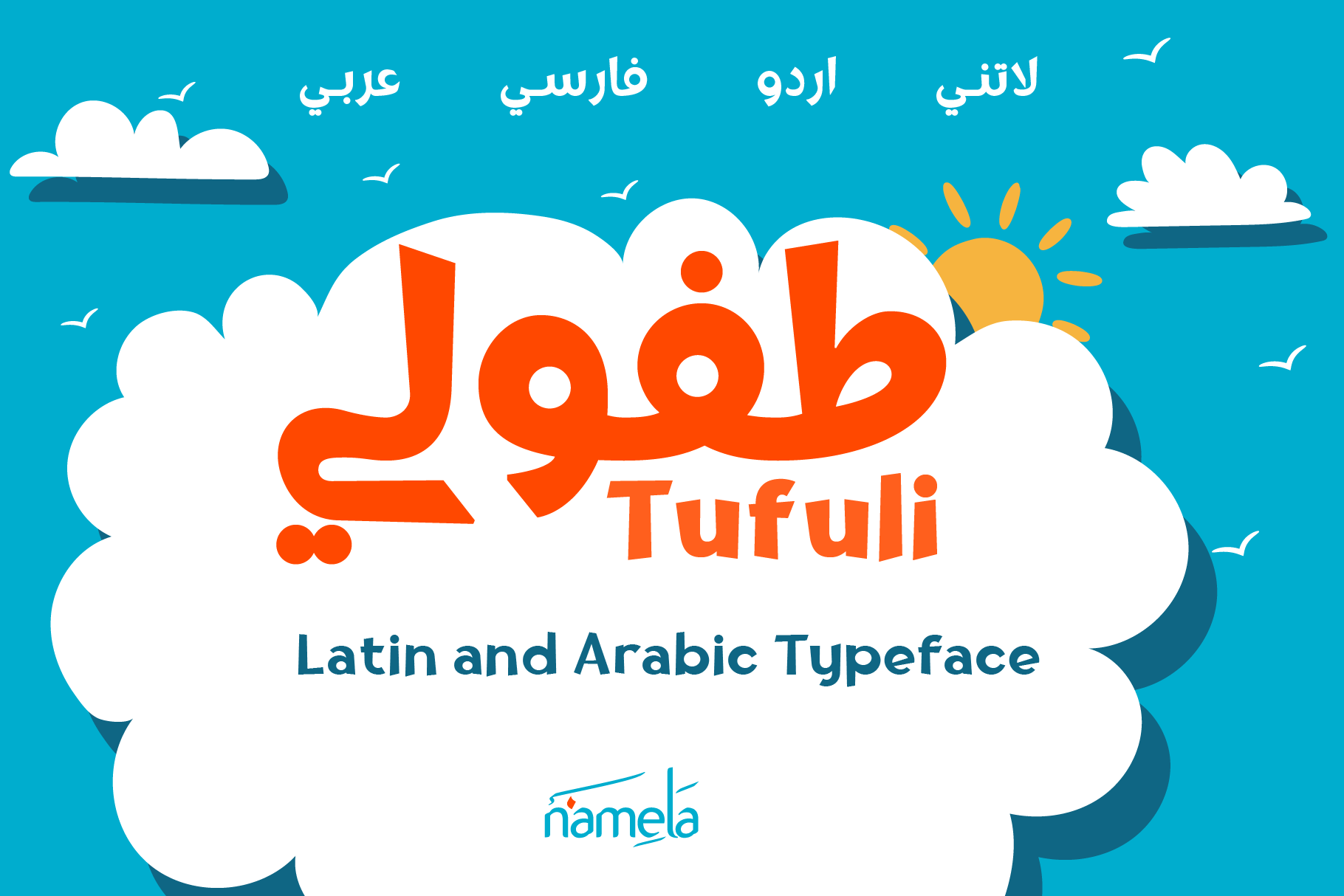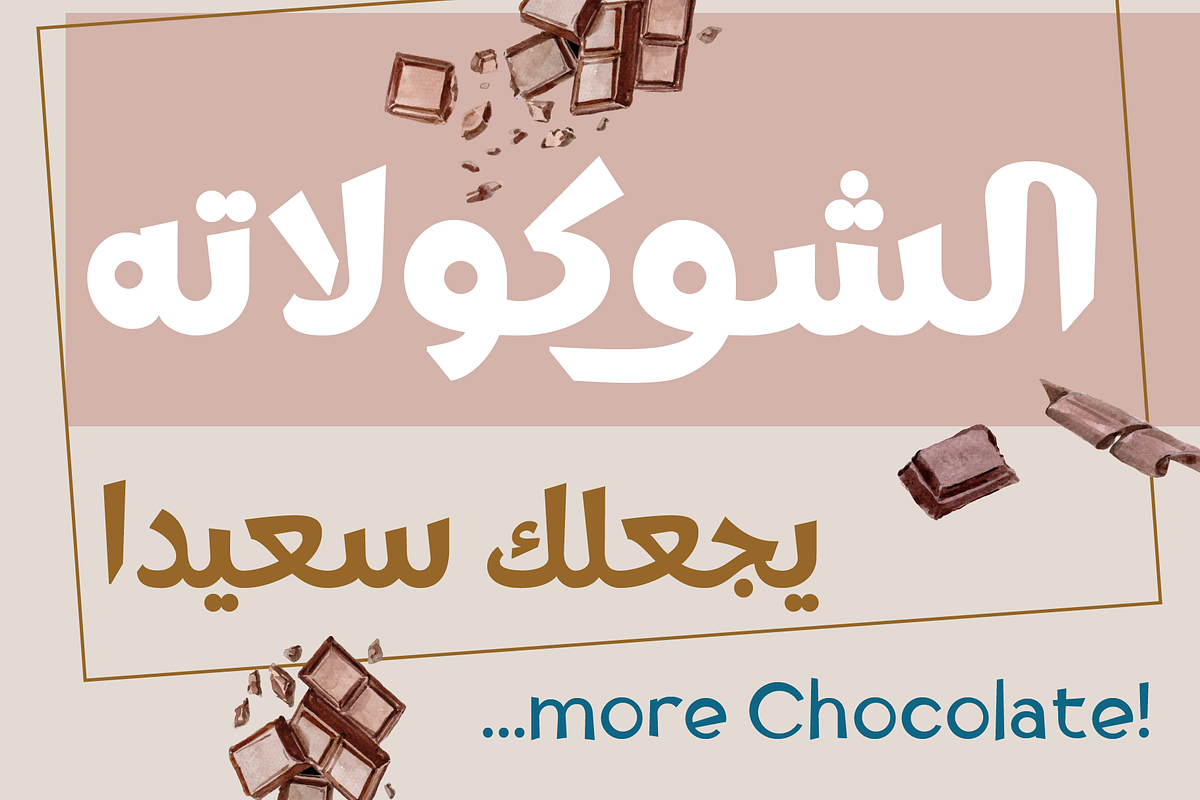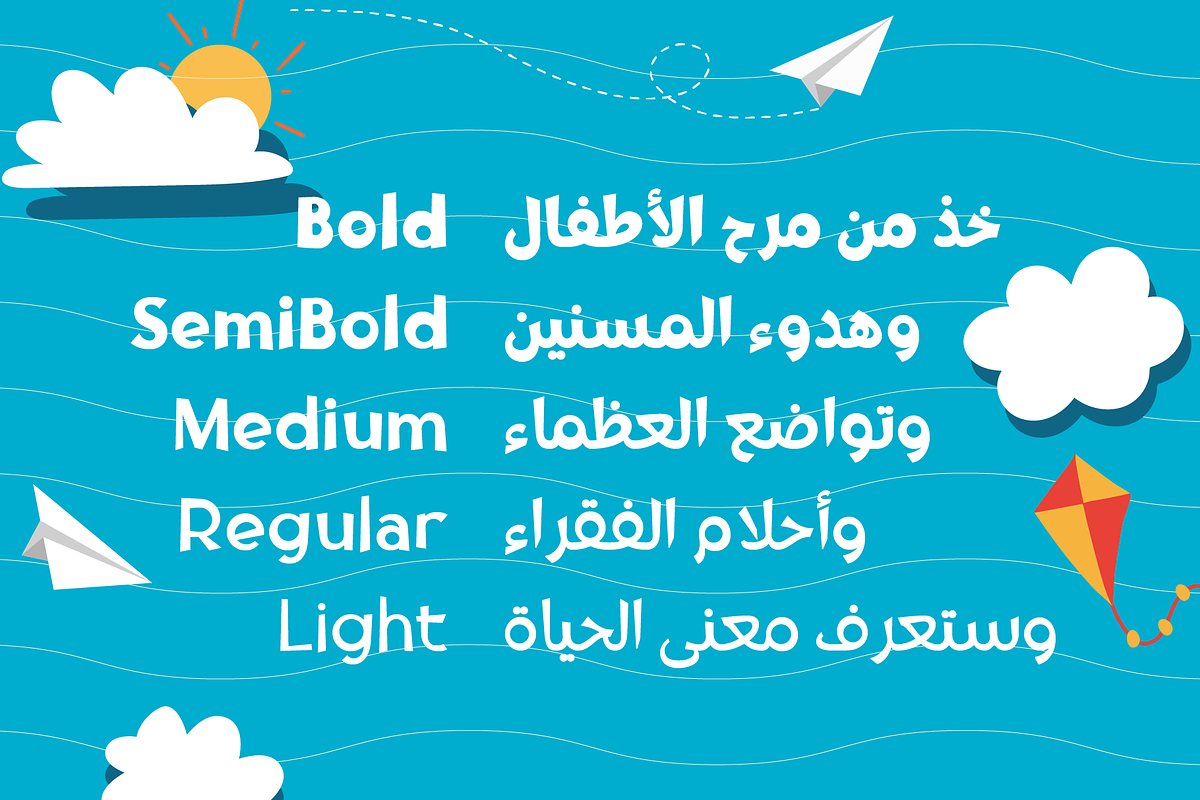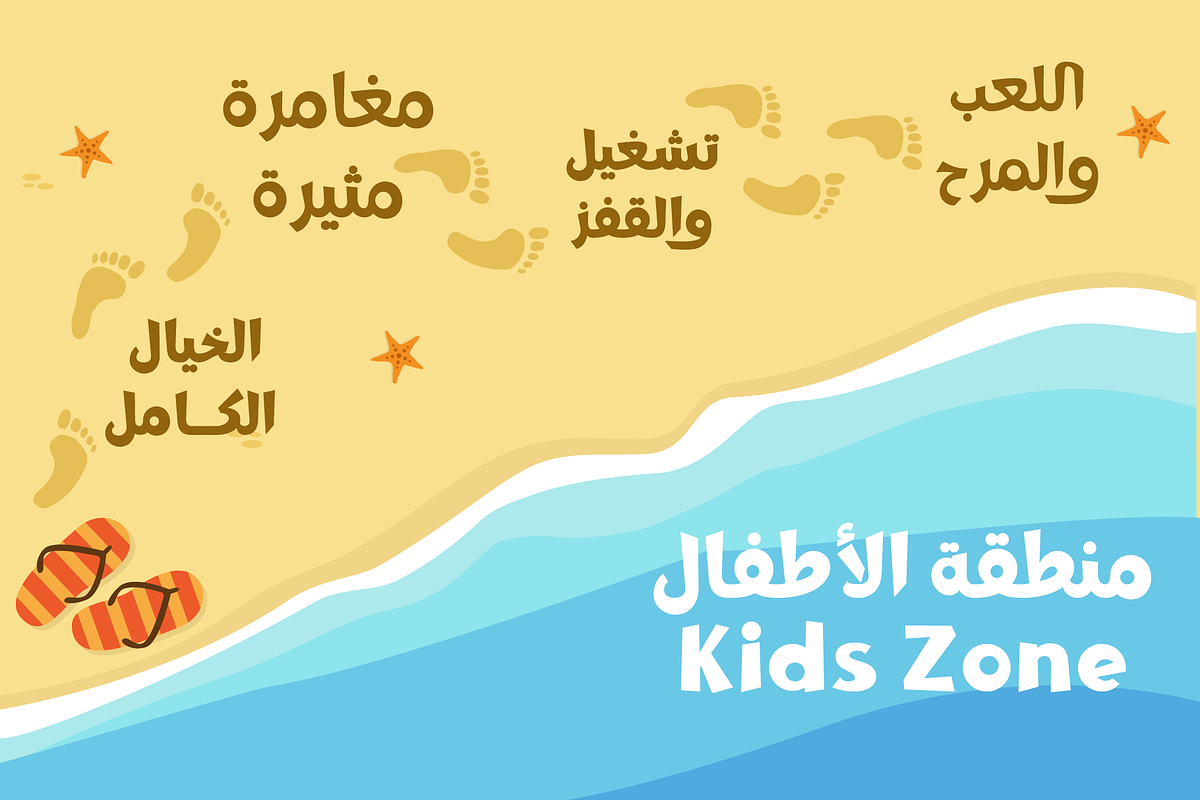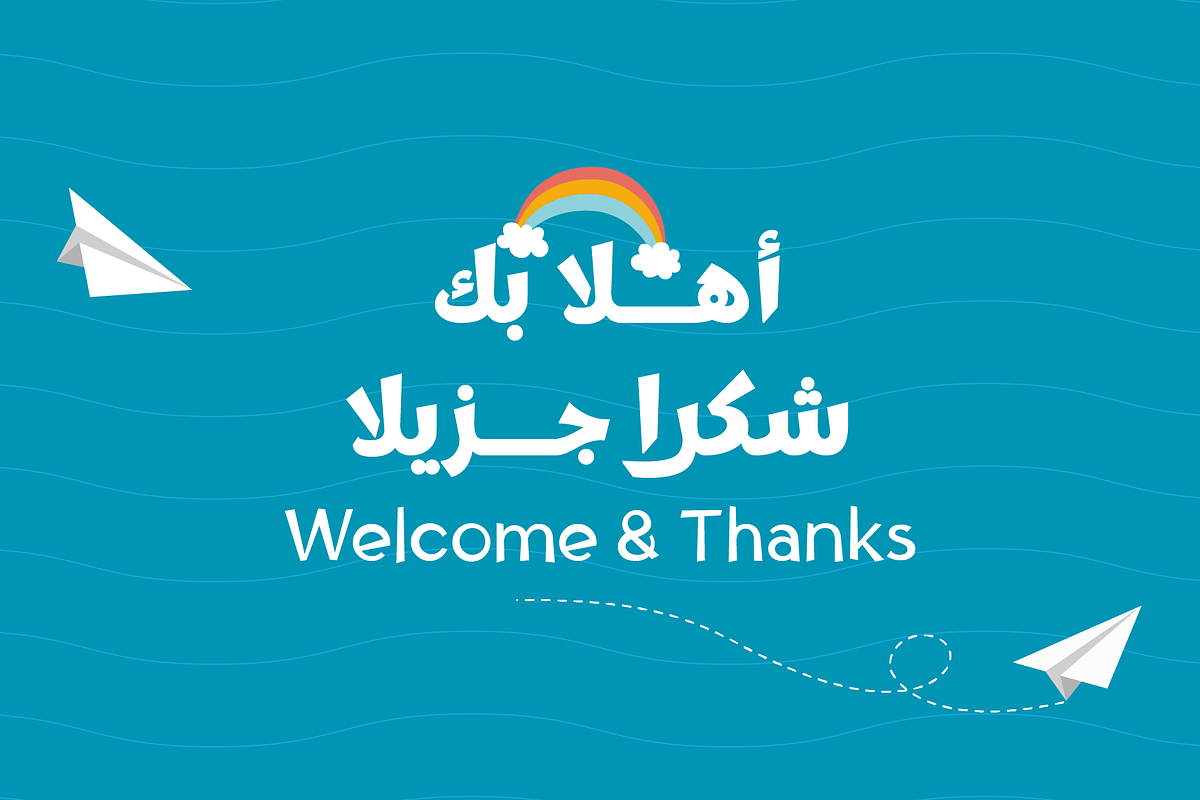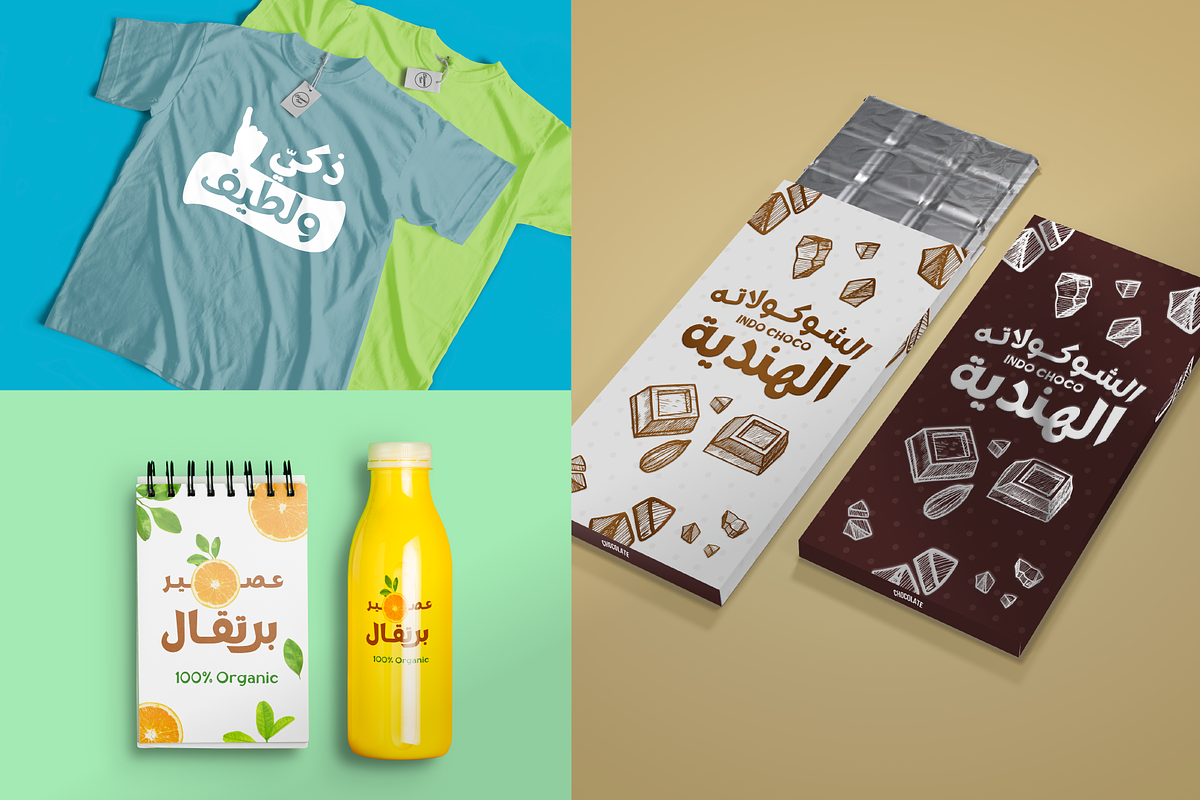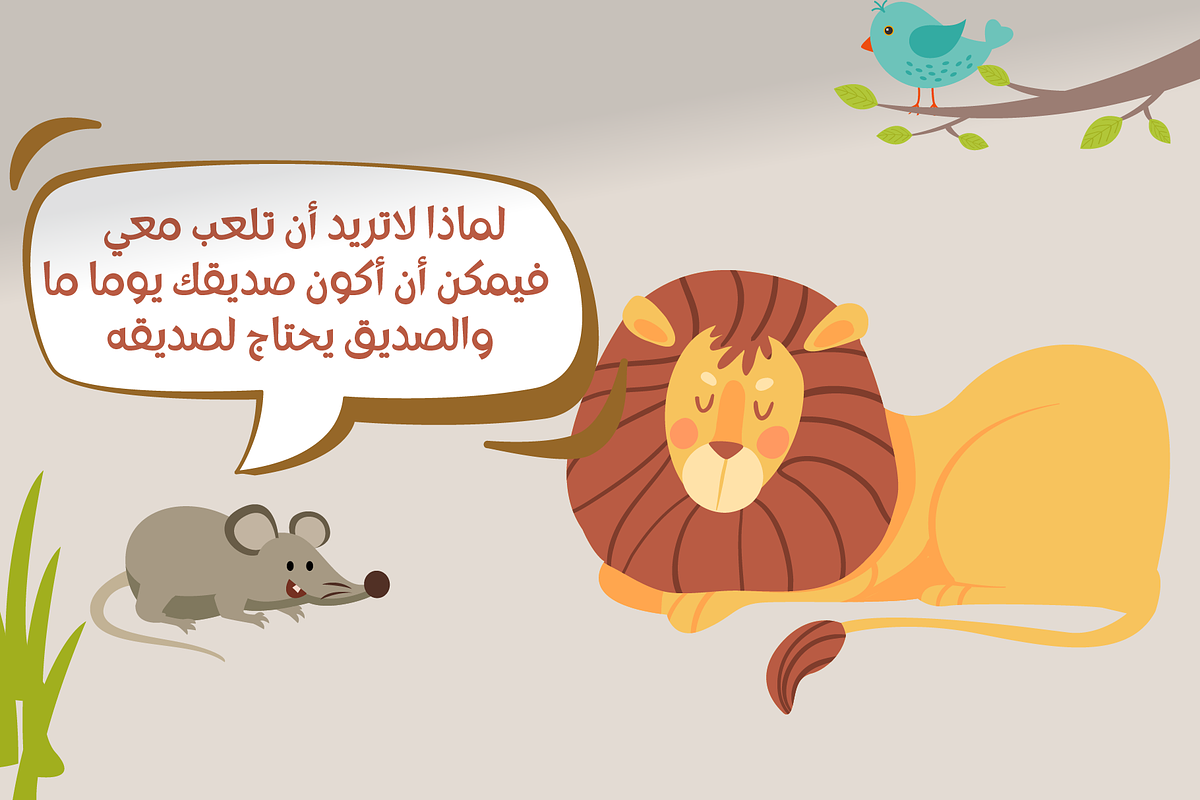
Tufuli Arabic - Cute Font Family
Tufuli is a harmonized Arabic - Latin font with childish characters. The sloping geometric terminal shapes gives Tufuli a playful feeling.